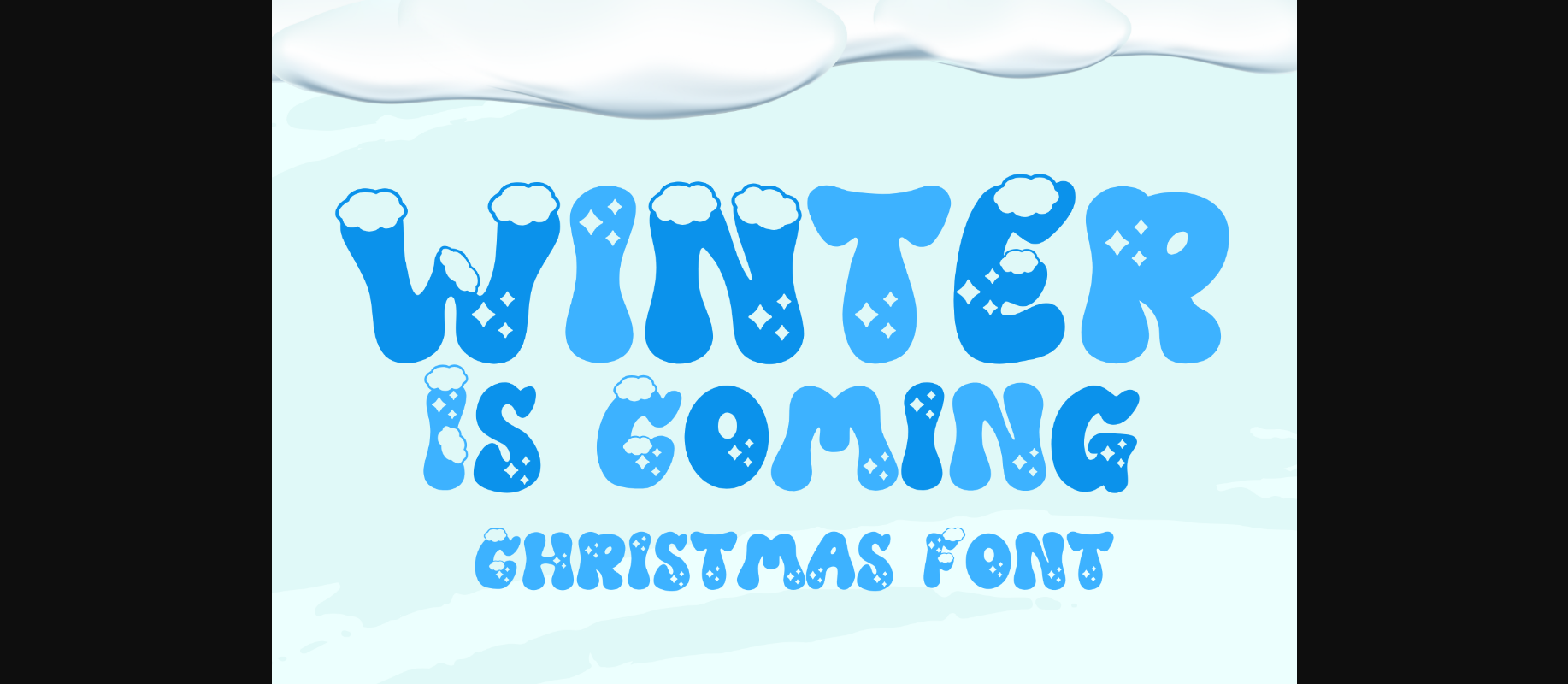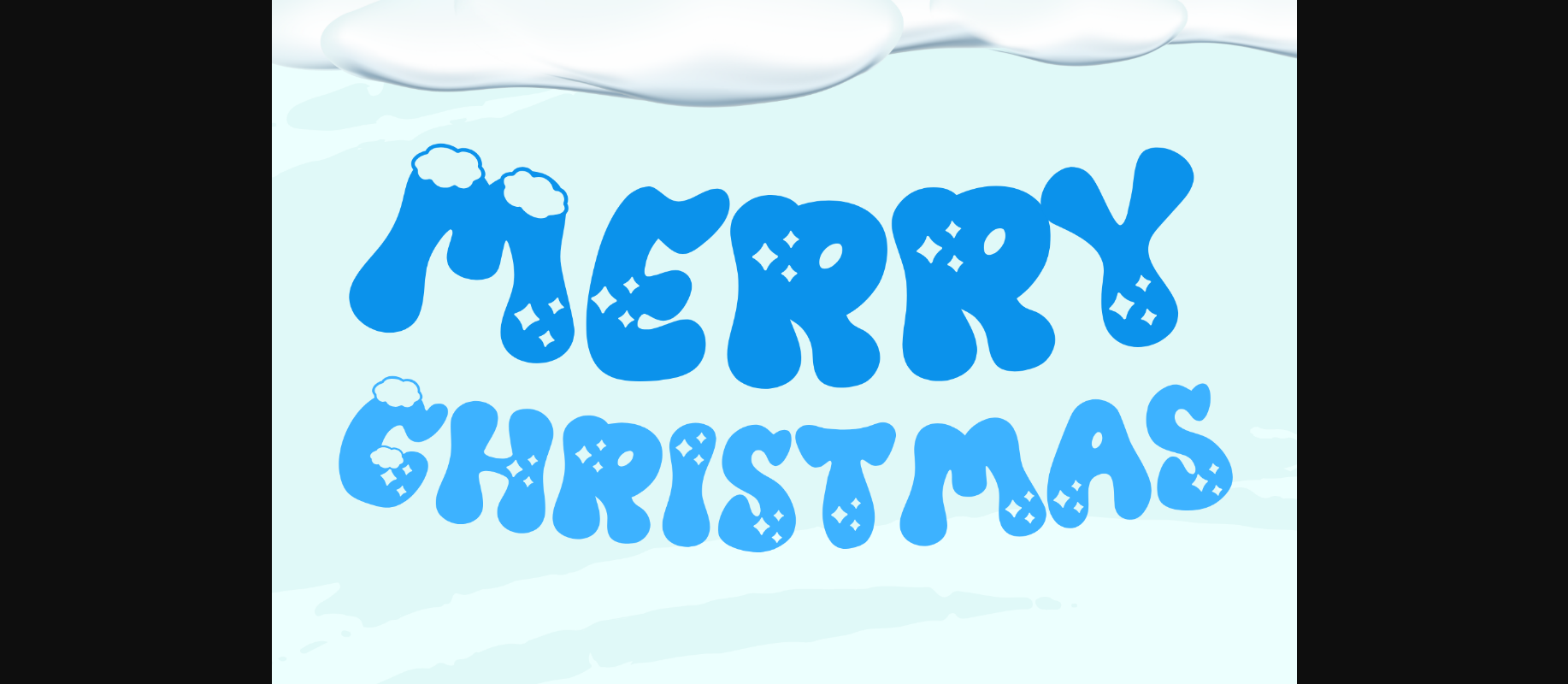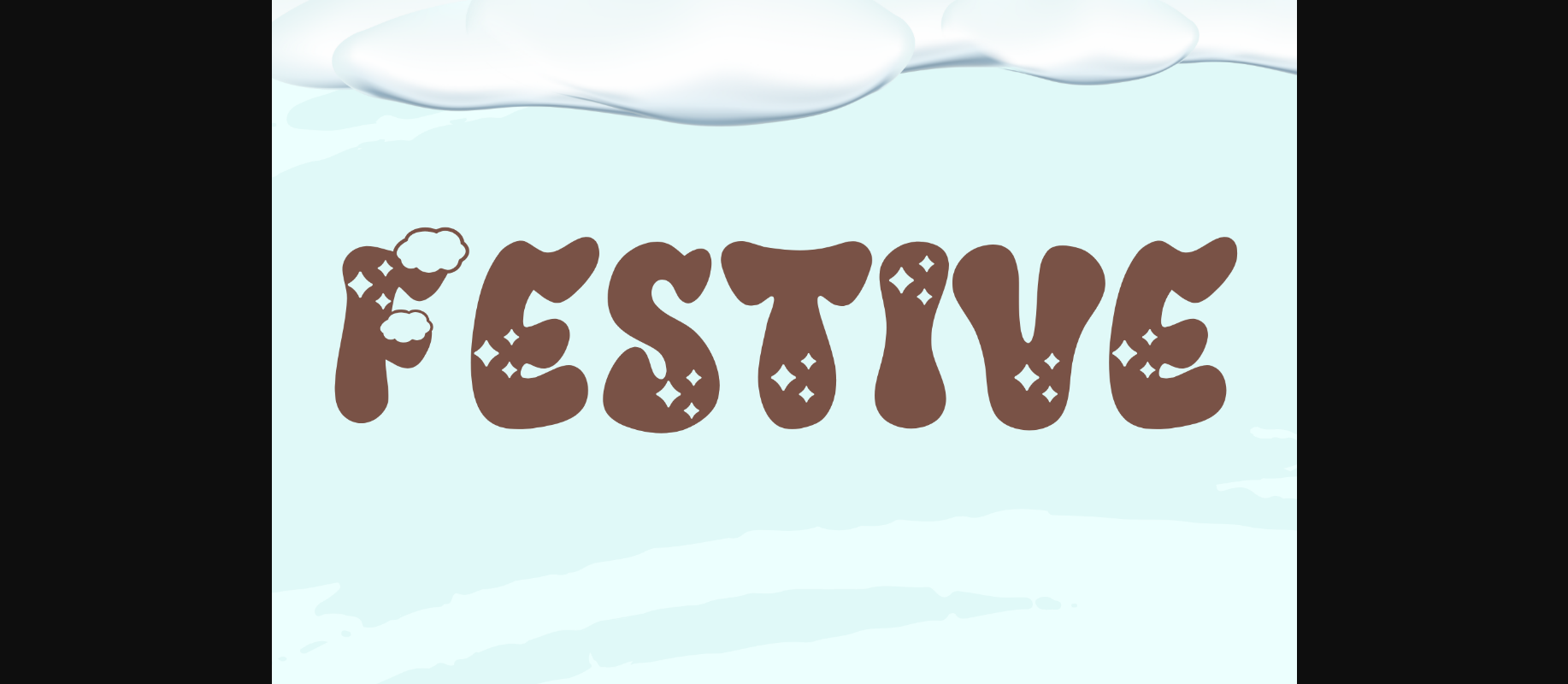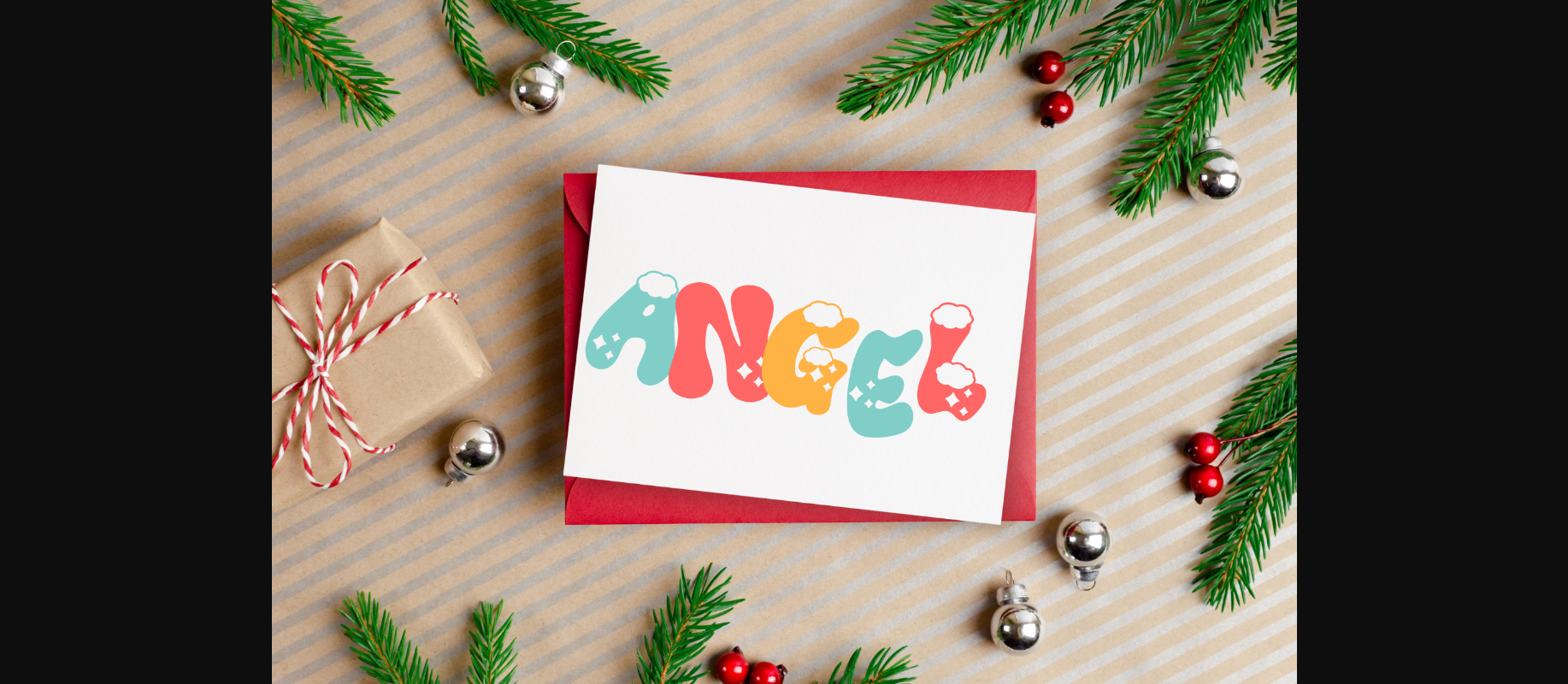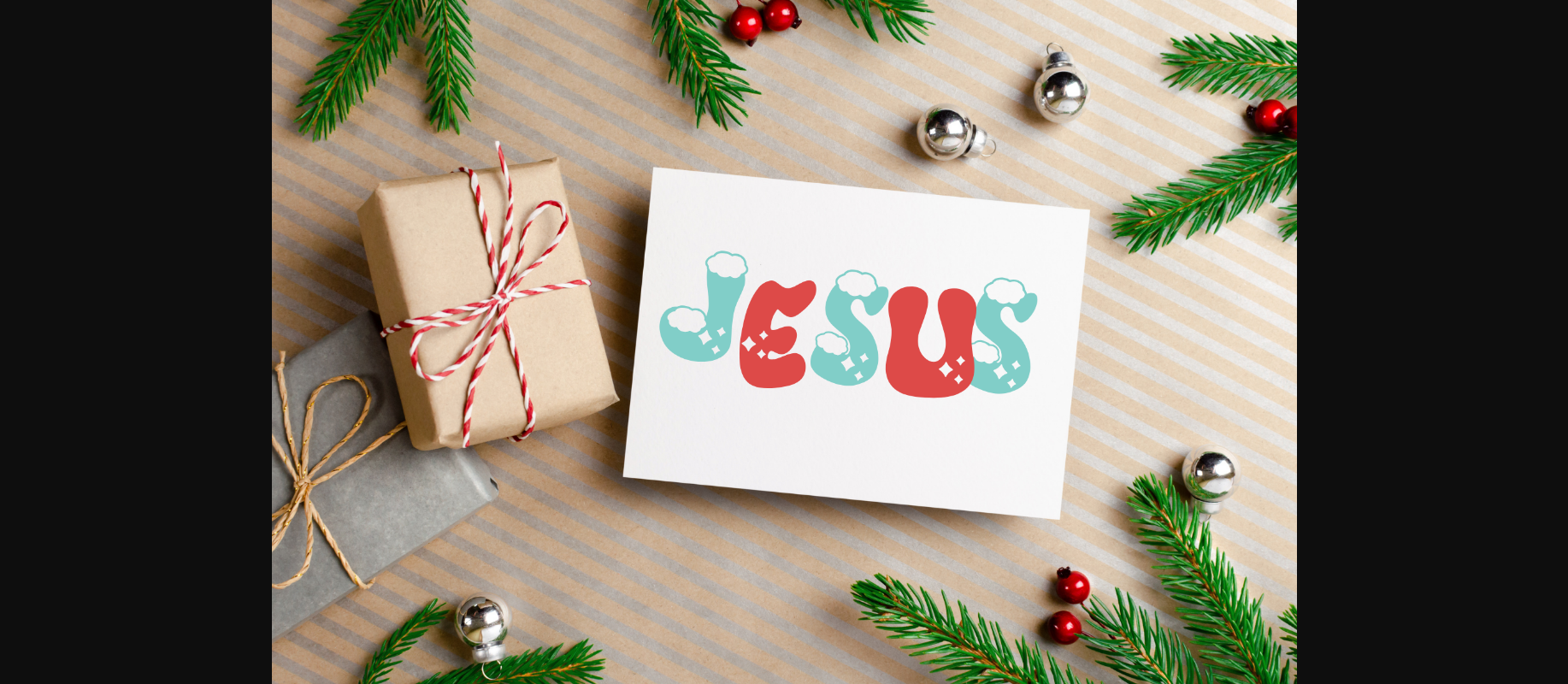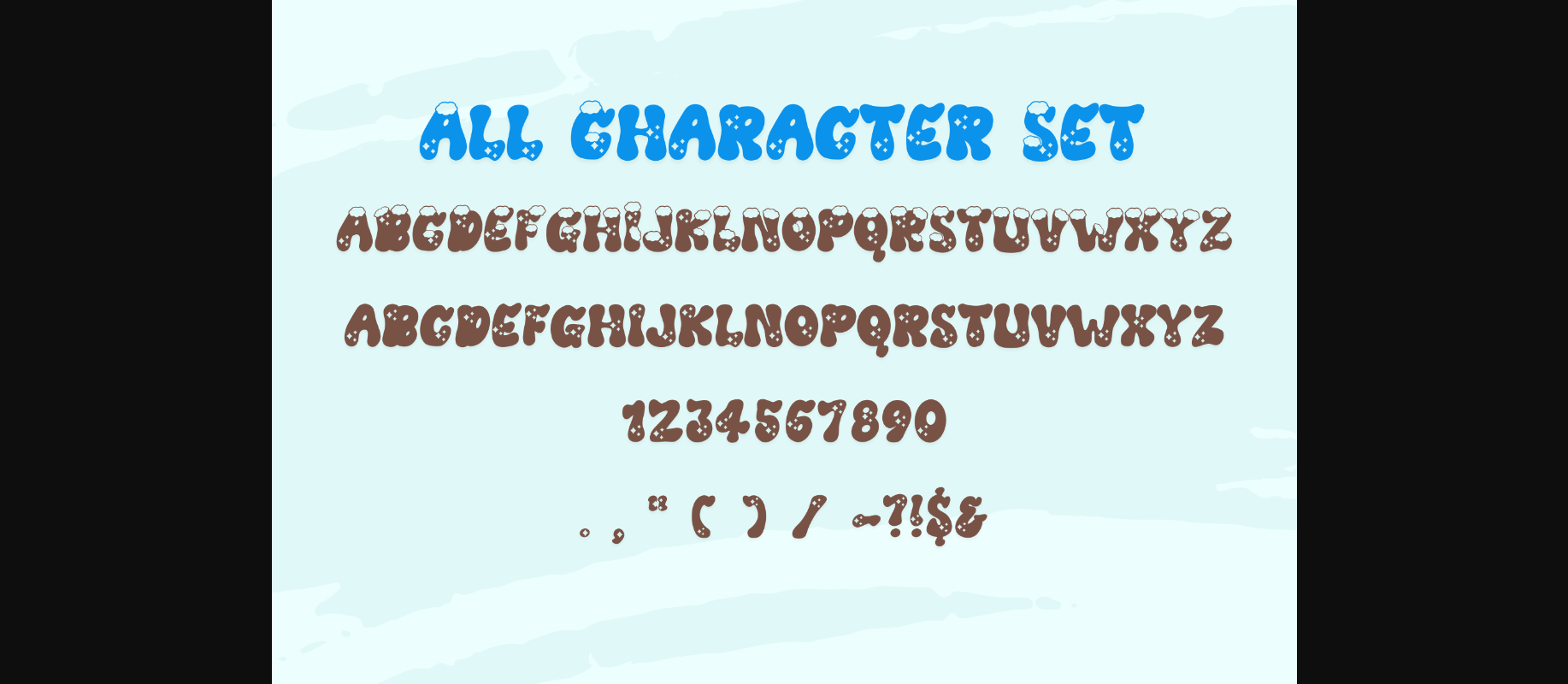
Winter is Coming Font
About Winter is Coming Font
Winter Is Coming is a cute Christmas decorative font. It embodies playfulness and authenticity and is the perfect choice for all your favorite projects, or even for blog posts, logos, branding, ads, invitations, greeting cards, planners, photo albums, decorations, and much more. Add it to any of your designs, and enjoy the results!